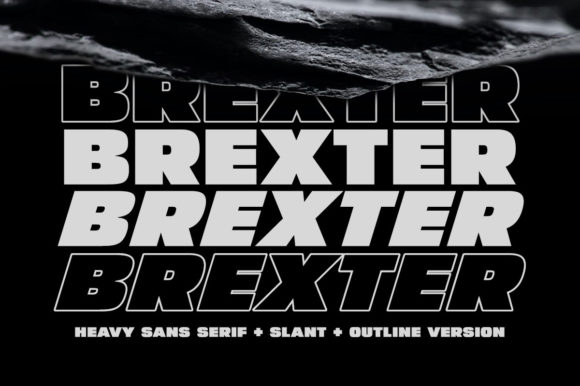
Introducing Brexter Font: The Ultimate Display Font for Designers and Crafters
Are you tired of using the same old fonts for your designs and crafts? Look no further! Brexter Font is here to take your creative projects to the next level. This bold, thick lettered, and cool display font is perfect for a variety of applications, from digital designing to crafting, presentations, and greeting cards making.
What Makes Brexter Font So Special?
Brexter Font is a unique and stylish font that is sure to grab attention. Its bold and thick letters make it perfect for headlines, titles, and other display purposes. The font is clean and crisp, with a modern look that will elevate your designs and crafts to new heights.
Perfect for Designers
Brexter Font is a must-have for designers who want to add a touch of sophistication and style to their work. Whether you’re creating a logo, brochure, or website, this font is sure to make a statement. Its versatility and legibility make it perfect for a wide range of design applications, from print to digital.
Some of the key features that make Brexter Font perfect for designers include:
- Bold and eye-catching: Brexter Font is sure to grab attention and make your designs stand out.
- Clean and crisp: The font is clean and crisp, making it perfect for both print and digital applications.
- Highly legible: Brexter Font is easy to read, even at small sizes, making it perfect for body text and captions.
- Versatile: The font can be used for a wide range of design applications, from logos and brochures to websites and social media graphics.
Perfect for Crafters
Brexter Font is not just for designers! Crafters will also love this font for their various projects. Whether you’re making greeting cards, scrapbooking, or creating DIY signs, Brexter Font is the perfect choice.
Some of the key features that make Brexter Font perfect for crafters include:
- Easy to use: Brexter Font is easy to use, even for those who are new to crafting and design.
- Customizable: The font can be easily customized to fit your project’s needs, from changing the color to adjusting the size.
- Perfect for titles and headings: Brexter Font is perfect for creating eye-catching titles and headings for your crafts.
Tips for Using Brexter Font
Here are some tips for getting the most out of Brexter Font:
- Use it for headlines and titles: Brexter Font is perfect for grabbing attention and making a statement.
- Experiment with different colors: Try out different colors to see what works best for your project.
- Mix it with other fonts: Brexter Font pairs well with other fonts, so feel free to experiment with different combinations.
Brexter Font is a versatile and stylish font that is perfect for designers and crafters alike. Its bold and thick letters make it perfect for headlines, titles, and other display purposes. Whether you’re creating a logo, brochure, or greeting card, Brexter Font is sure to elevate your project to new heights.